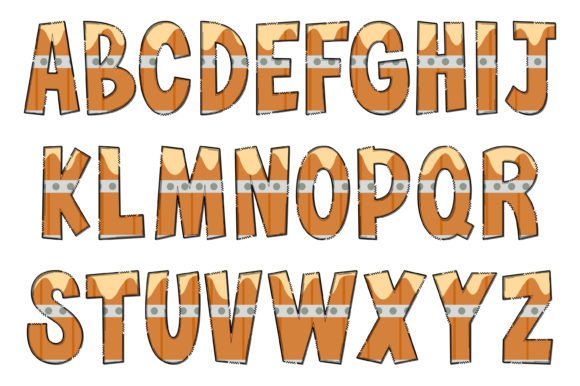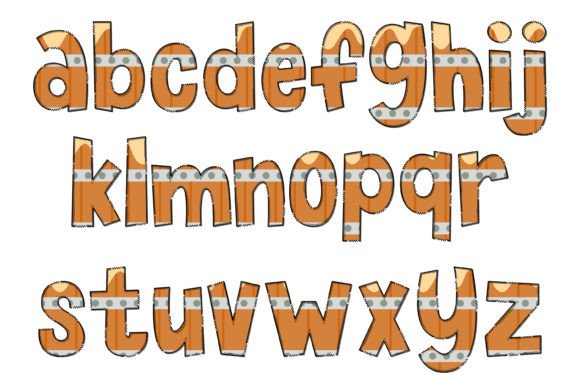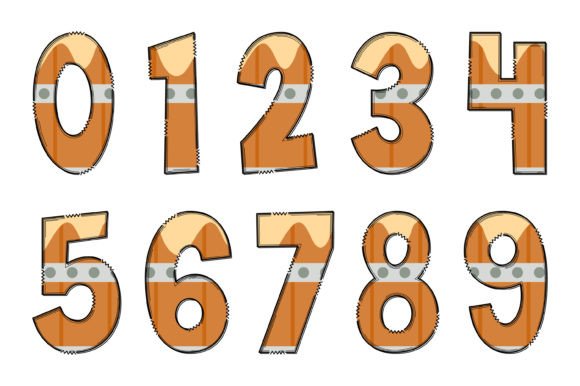
Introducing Delicious Beer Font: A Playful and Artistic Typeface
Are you a designer or crafter looking for a font that can add a touch of playfulness and whimsy to your projects? Look no further than the Delicious Beer font! This charming typeface is perfect for designs that aim to convey a fun and artistic feel, making it ideal for a wide range of applications, from children’s books to posters, invitations, and greeting cards.
The Perfect Font for Children’s Books
When it comes to creating engaging and interactive children’s books, the font used can make all the difference. The Delicious Beer font is a great choice for kids’ books due to its whimsical, colorful, and easy-to-read design. This font is sure to capture the attention of young readers and create a fun and immersive reading experience. Whether you’re a children’s book author, illustrator, or designer, the Delicious Beer font is a great addition to your typography collection.
Beyond Children’s Books: Other Uses for Delicious Beer Font
While the Delicious Beer font is perfect for children’s books, its uses don’t stop there. This versatile typeface can be used in a wide range of designs, including:
- Posters: Add a playful touch to your posters with the Delicious Beer font, making them stand out and grab attention.
- Invitations: Create fun and unique invitations for parties, events, or celebrations with this charming font.
- Greeting Cards: Add a personal touch to your greeting cards with the Delicious Beer font, making them extra special for the recipient.
Tips for Using Delicious Beer Font in Your Designs
To get the most out of the Delicious Beer font, here are some tips to keep in mind:
- Experiment with colors: As a color font, the Delicious Beer font offers endless possibilities for color combinations. Don’t be afraid to try out different hues and shades to create a unique look.
- Mix and match: Combine the Delicious Beer font with other fonts to create a contrasting and visually appealing design.
- Pay attention to legibility: While the Delicious Beer font is designed to be playful and whimsical, it’s essential to ensure that it’s still legible, especially for younger audiences.